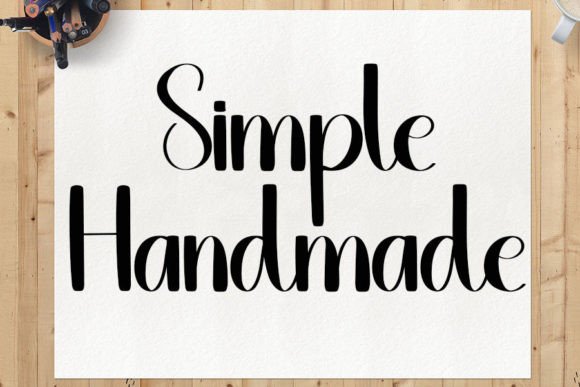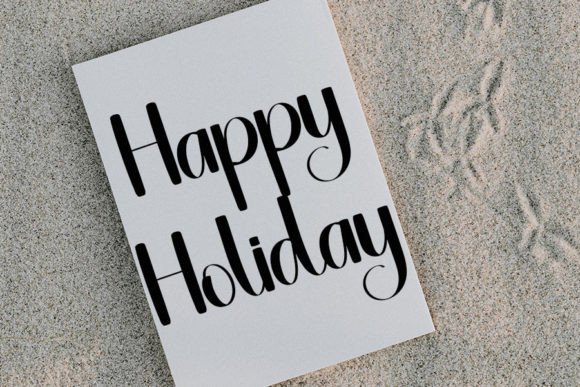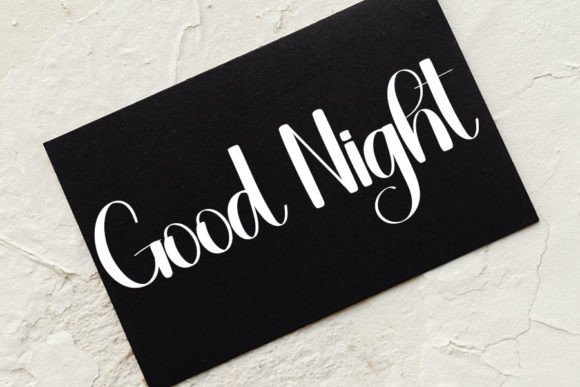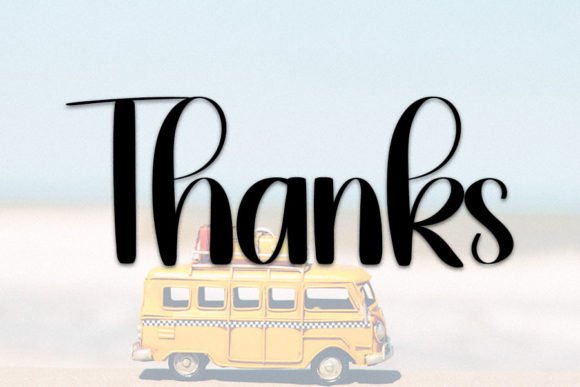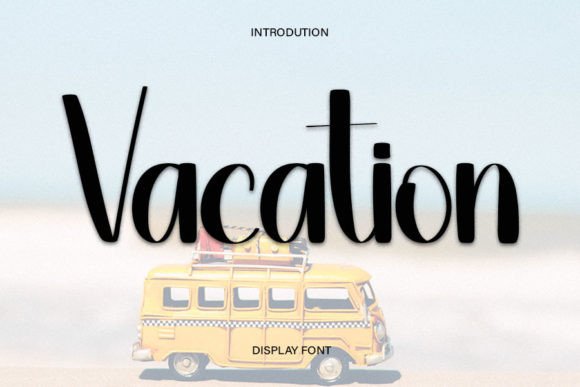
About Vacation Font
Vacation font is a delicate and beautifully crafted handwritten typeface designed to bring a fresh and unique vibe to your creative projects. Whether you are designing personalized letters, elegant invitations, food product packaging, or stylish titles, this font offers a versatile and charming option that adds warmth and personality to any design.
Delicate Handwritten Style
This font captures the natural beauty and flow of genuine handwriting. Vacation font features soft, smooth strokes that create an inviting and personal feel. Its delicate appearance makes it perfect for projects where a handmade, authentic touch is desired. The font maintains excellent readability while offering an artistic and sophisticated look.
Perfect for Letters and Invitations
When you want to convey sincerity and warmth, especially in letters and invitations, Vacation font is an ideal choice. Its natural handwritten style adds a personal touch that transforms ordinary text into heartfelt messages. Use this font for wedding invitations, thank you cards, or any special occasion that calls for a graceful and elegant presentation.
Great for Food Product Packaging
Vacation font is also well-suited for product packaging, especially in the food industry. Its handmade, delicate look gives packaging a unique and artisanal feel. This adds value and authenticity to your brand, helping your products stand out on shelves and attract customers who appreciate craftsmanship and quality.
Eye-Catching Titles and Headlines
The font works beautifully in titles and headlines, grabbing attention with its flowing, delicate characters. Use Vacation font to enhance posters, social media graphics, branding materials, and more. Its stylish design ensures your headlines communicate elegance and creativity while remaining easy to read.
Versatile and Easy to Pair
Vacation font is incredibly versatile. It blends well with various design styles and pairs easily with other fonts, giving you flexibility in your projects. Whether your work is for print or digital media, this font adapts seamlessly to different layouts, sizes, and uses.
Why Choose Vacation Font?
Choosing Vacationfont means selecting a font that offers a beautiful balance between elegance and readability. Its delicate handwritten strokes give your projects a personal, warm feeling that resonates with audiences. This font is ideal for designers, crafters, and business owners who want their creations to exude sophistication and charm.
Bring Your Projects to Life
With Vacationfont, your creative ideas gain a distinctive and heartfelt voice. From invitations and packaging to titles and more, this font adds a timeless and authentic touch to your work. Experience the versatility and elegance of Vacationfont today, and elevate your designs with its unique handcrafted style.